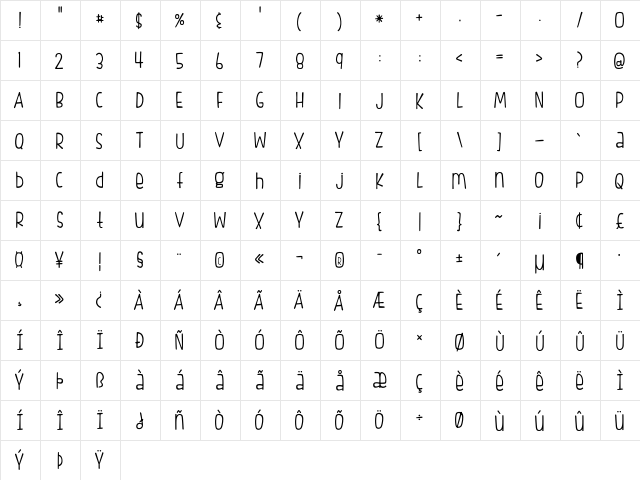
FISHfingers Regular
Design Context for FISHfingers Typeface
FISHfingers offers clean, dependable letterforms without strong stylistic allegiance, making it a practical choice for designers who need flexibility.
Pro Tip: Pair FISHfingers with a font of contrasting weight or personality to build a more expressive typographic hierarchy.